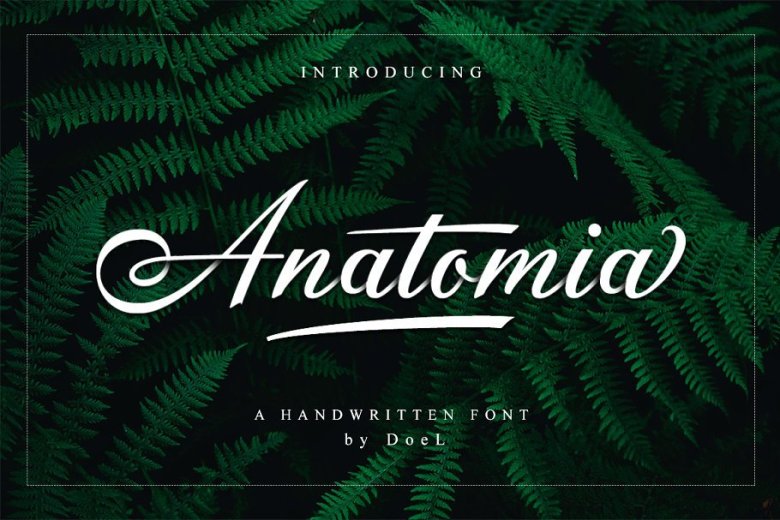
Anatomia Script Font
A new fresh handmade calligraphy font. This font looks natural, classy, natural and perfect for any awesome projects that need calligraphy taste. Introducing Anatomia Font. Anatomia is a beautiful script with a new lovely stylish, a perfection style of the letters you want to use, modern handwriting with many alternatives. Now this is an opentype! It’s smart and in line with your wishes! You are welcome to use it, suitable for various purposes: logo, signatures, corporate symbol, wedding invitation, title, creative, t-shirt, business card, letterhead, nameplate, headings, label, poster, news, badge, letterhead, cutting, hot stamping, quotation, etc.